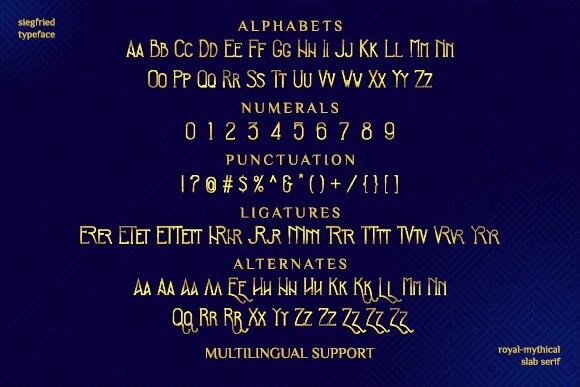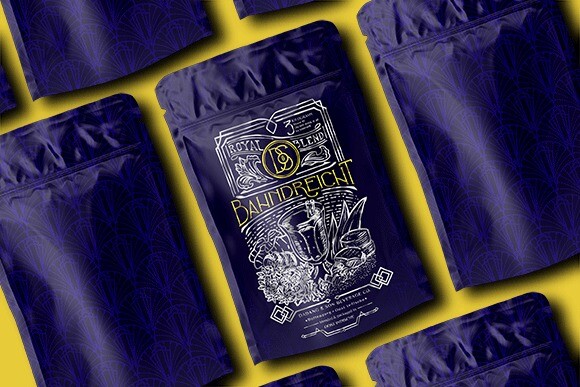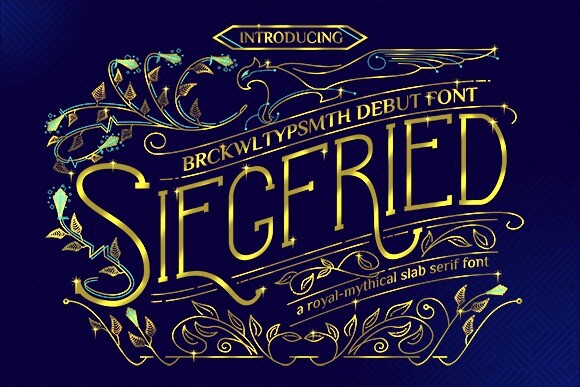
Siegfried Font
Siegfried Font is a thin lettered and delicate serif font, featuring a royal-mythical vibe. Use this font for brochure, logotype, advertising, invitation, packaging, movie title, and much more. This font is PUA encoded which means you can access all glyphs and swashes with ease!